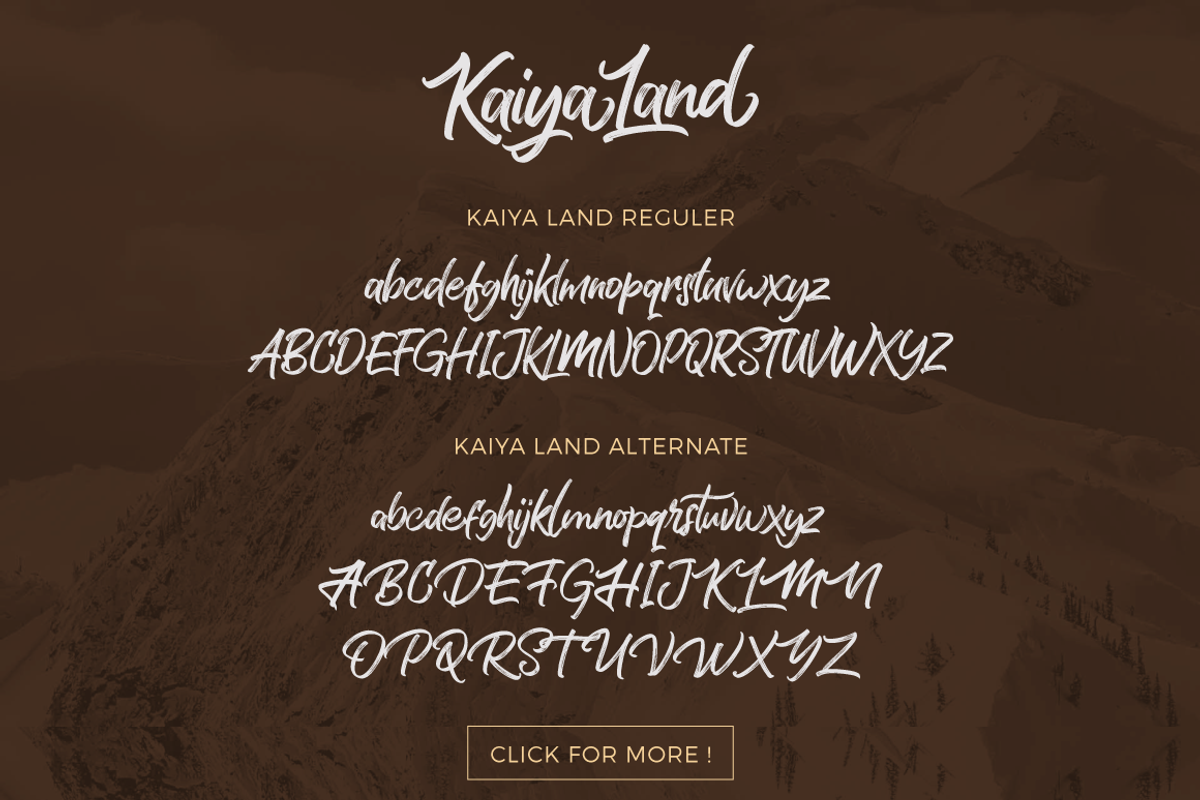
KaiyaLand Brush
Kaiya Land is a dry brushed font with the edgy characters and the rustic brush effect. It suitable for logo, branding, t-shirt, poster, packaging, book cover, hipster design, cards, and any brush lettering needs and more.
Kaiya Land Reguler - a hand brushed font comes with upper and lowercase Standard Characters, Punctuation, Numerals. And other Glyphs variation of the OpenType features such as Stylistic Alternates, Stylistic Sets and some Ligatures. Alternates are available for lowercase characters.
Kaiya Land Alt - a second version of Kaiya Land, with a completely new set of lowercase characters, and 90% new set of uppercase characters.